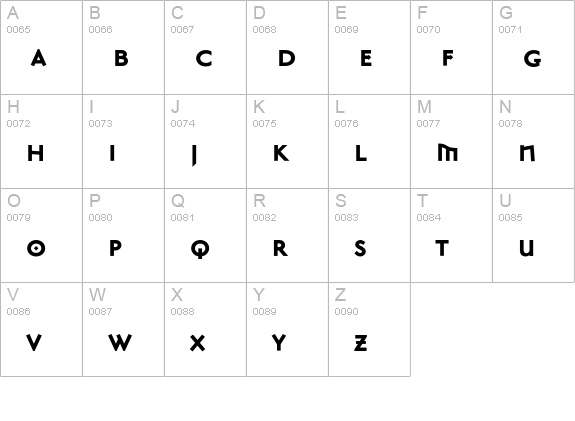
MasonSansSuperBold Font Details
Introducing MasonSansSuperBold, a remarkable font that exudes strength and confidence through its bold and powerful design. This font takes typography to the next level, with its clean lines and distinct geometric shapes that captivate the eye. The MasonSansSuperBold font is perfect for adding a touch of modernity and boldness to any design project. With its versatility, this font can effortlessly elevate various design elements, such as logos, headlines, posters, and more. It demands attention and makes a strong statement, leaving a lasting impression on viewers. Whether you're aiming to make a bold statement or create a sense of authority, MasonSansSuperBold is the ideal choice. One of the best features of MasonSansSuperBold is that it is freely available to download at FontsMarket.com. This means that you can easily access this font without any cost, allowing you to explore its potential in your creative endeavors. Its accessibility makes it a valuable asset for both professional designers and enthusiasts alike. MasonSansSuperBold is designed with meticulous attention to detail, ensuring that each character is well-crafted and visually appealing. The boldness of this font is balanced by its legibility, making it a functional choice for a wide range of applications. Its modern and sleek aesthetic makes it suitable for various industries, from fashion and technology to advertising and branding. Embrace the power of MasonSansSuperBold and unleash your creativity with its strong and commanding presence. Make an impact with your designs and captivate your audience effortlessly. Download MasonSansSuperBold for free at FontsMarket.com and experience the endless possibilities it offers. Elevate your typography game and create designs that leave a lasting impression.